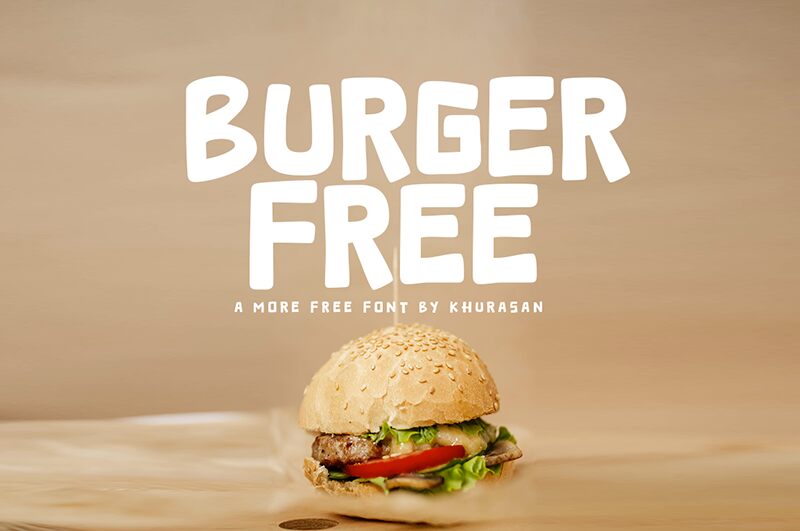
Burger Free
Burger, the bold and playful display font designed by Khurasan, is a perfect choice for creative projects that demand attention. With its cartoon-inspired style, this font adds a touch of fun and excitement to any design.
Whether you're creating children's book covers, vibrant posters, or eye-catching logos, Burger's boldness and whimsical charm will make your message pop. Its versatility also extends to menus for family-friendly restaurants or food-themed illustrations.
Let Burger be the star of your next project and captivate your audience with its lively personality.